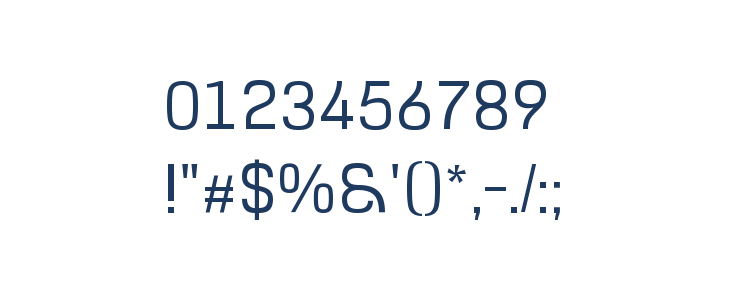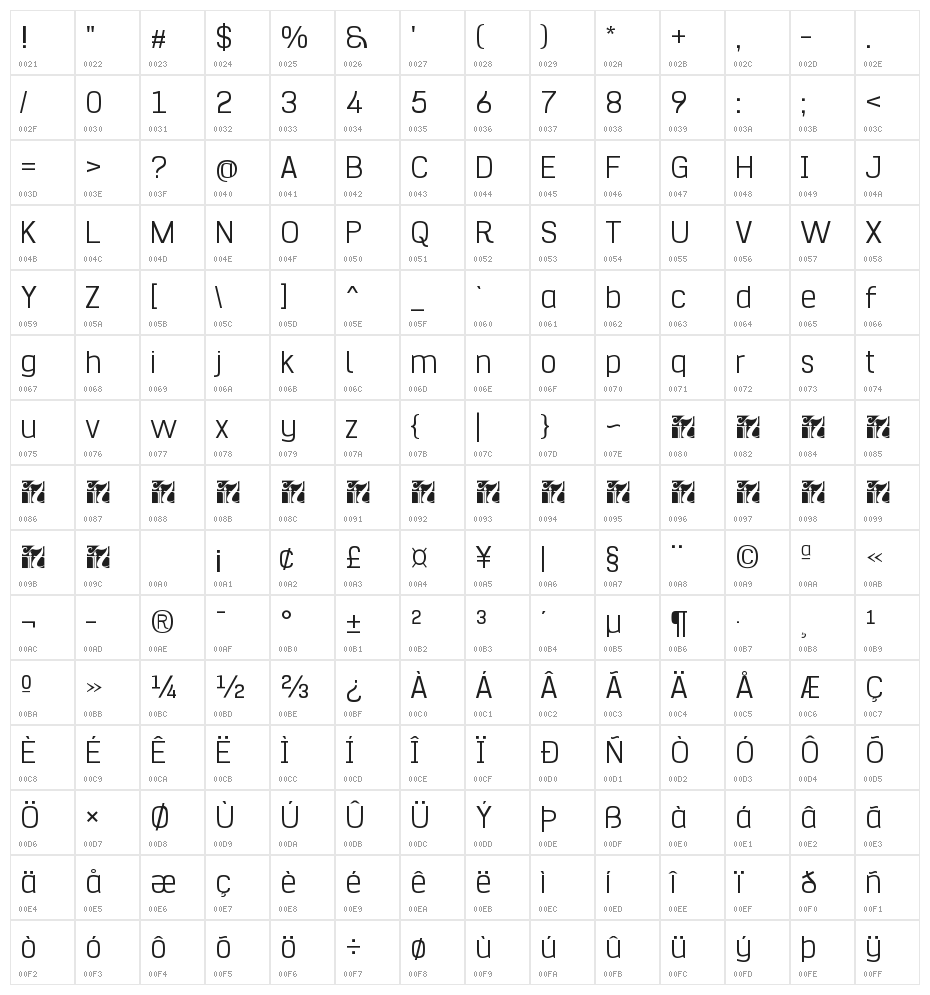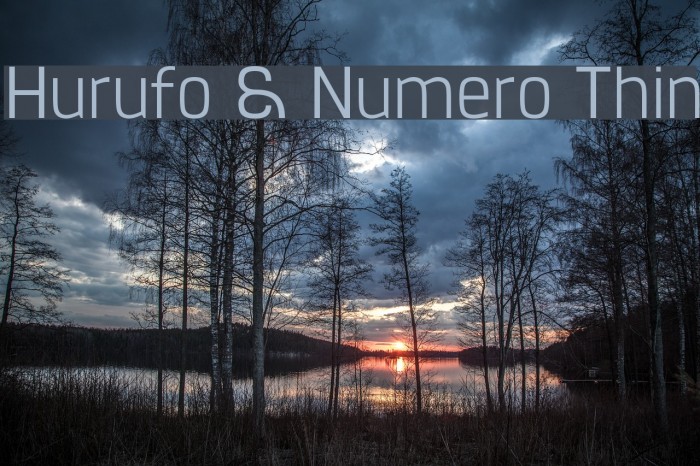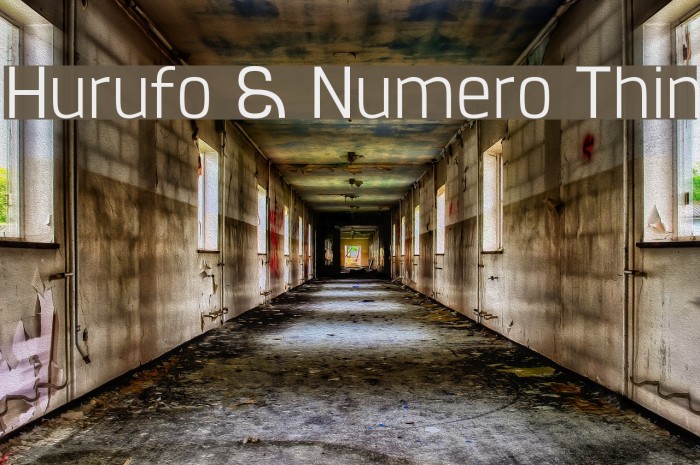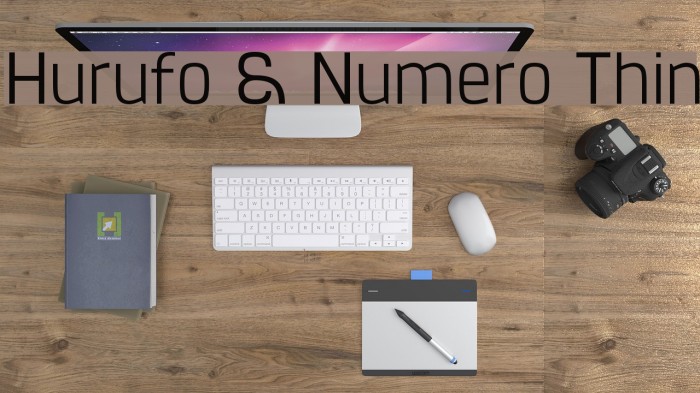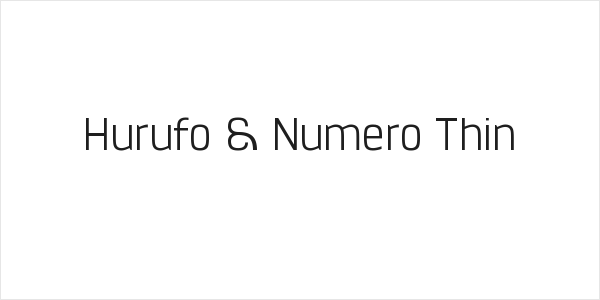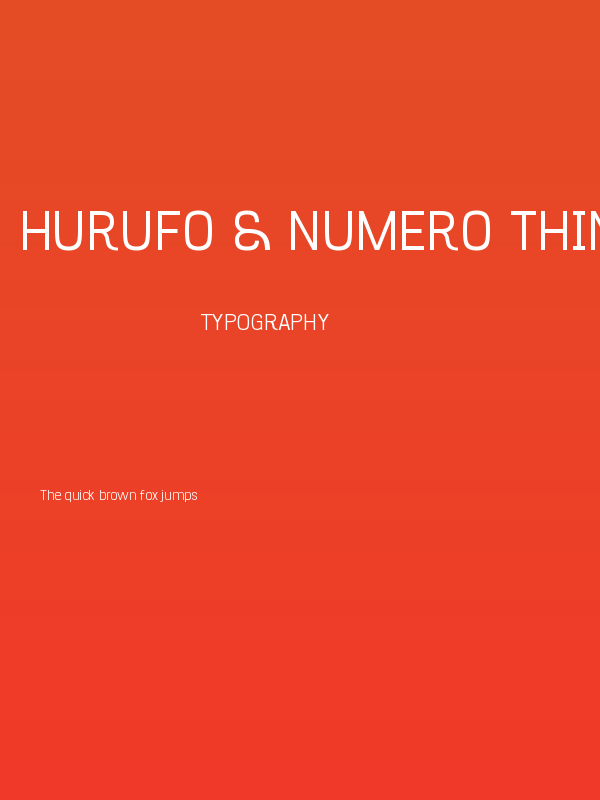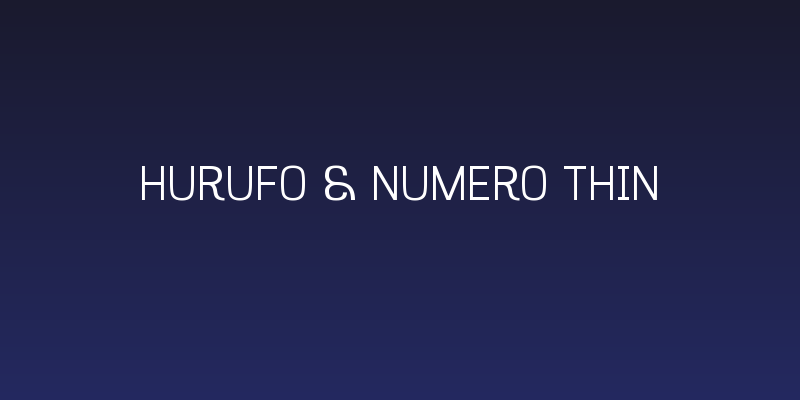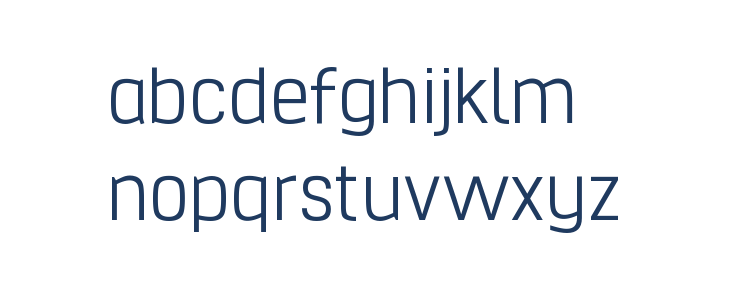
Hurufo & Numero Thin Font
Hurufo & Numero Thin Description
This font exhibits a clean and modern sans-serif style, characterized by its thin and uniform stroke weight. The characters are well-proportioned with a consistent height, offering a sleek and contemporary appearance. The uppercase and lowercase letters maintain a harmonious balance, while the numerals and special characters integrate seamlessly into the overall design. The font's simplicity and clarity make it highly legible, suitable for a variety of applications where readability is key. Its minimalist aesthetic is ideal for projects that require a professional and understated look.
| Proposed Projects | Ideal for digital interfaces, corporate branding, editorial design, and minimalist posters. |